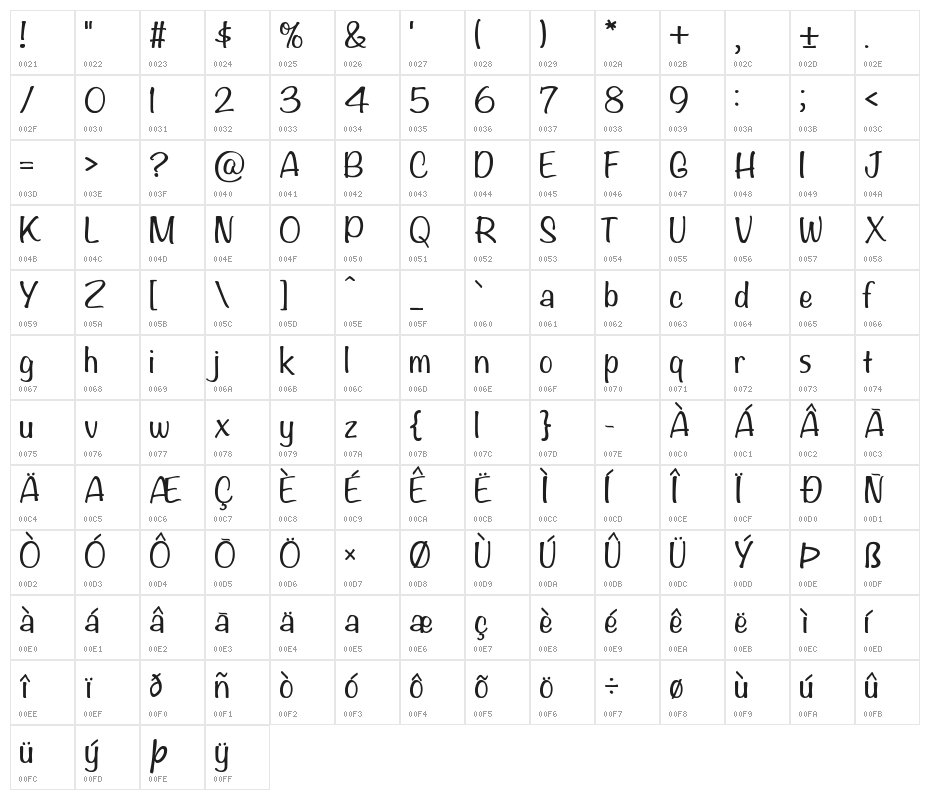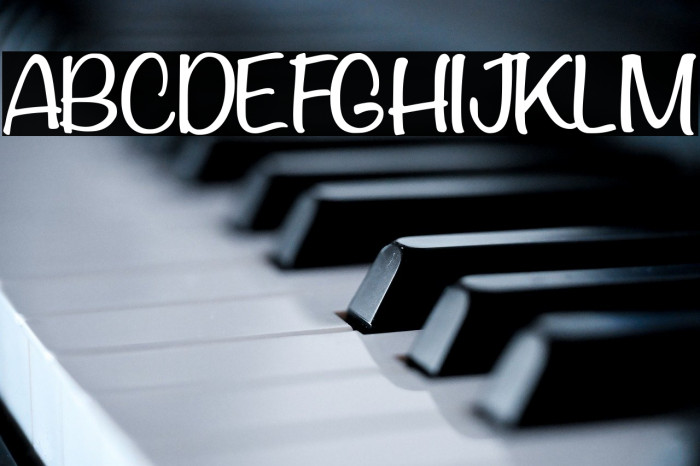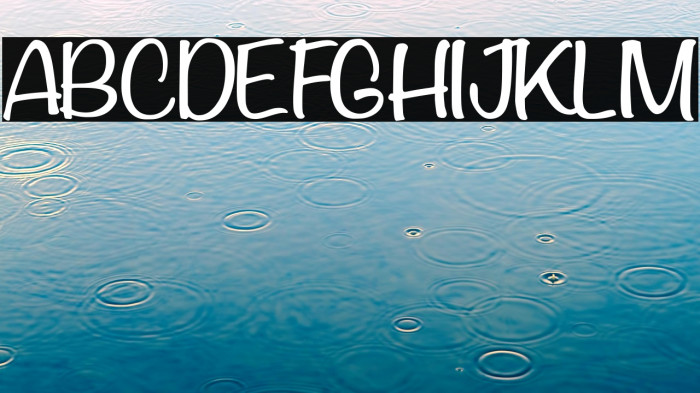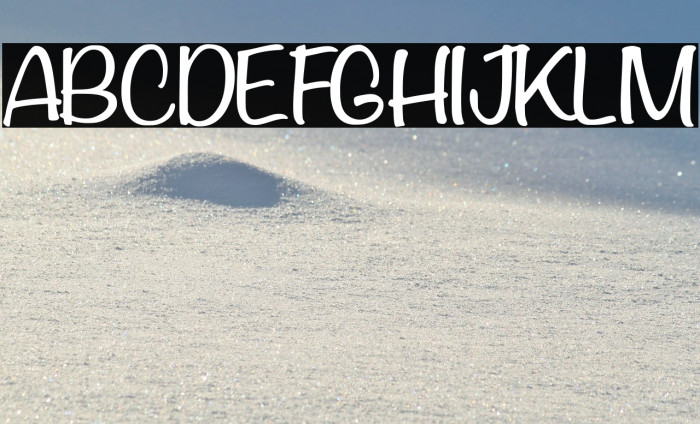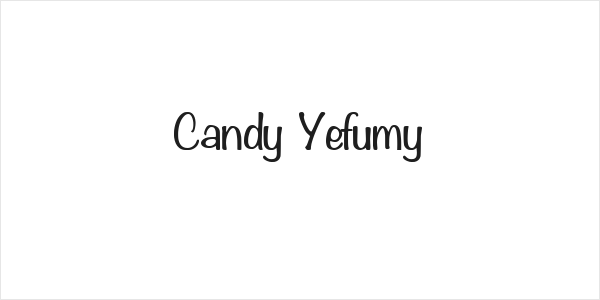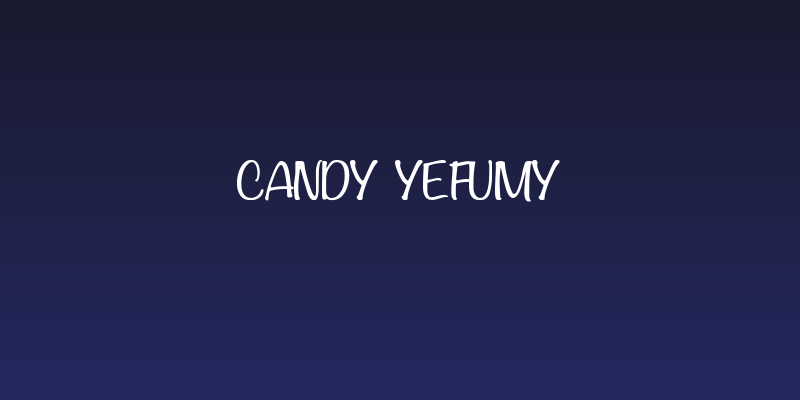
Candy Yefumy Font
Candy Yefumy Description
This playful and whimsical font features a handwritten style with a casual and friendly appearance. The letters are slightly slanted, giving it an informal and dynamic feel. The strokes are smooth and rounded, with a consistent thickness that adds to its approachable nature. The uppercase and lowercase letters maintain a harmonious balance, while the numerals and special characters are designed to complement the overall style. This font is perfect for projects that require a touch of personality and creativity.
| Proposed Projects | Ideal for greeting cards, children's books, playful branding, and social media graphics. |